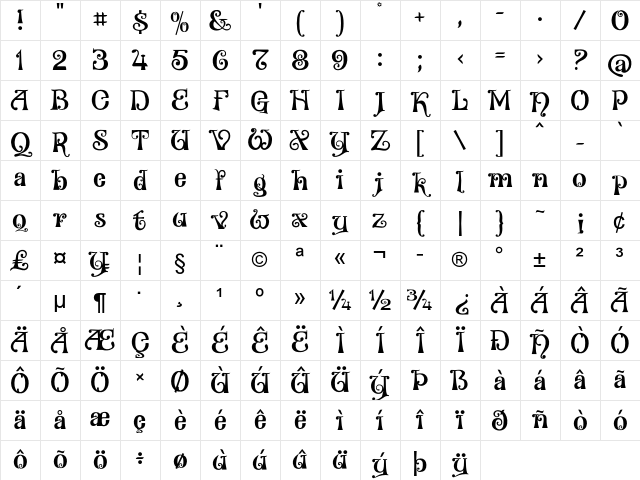
Alistair Regular
Design Context for Alistair
Alistair is a composed and adaptable typeface that performs quietly and consistently across a wide range of design contexts.
Pro Tip: Use Alistair in both headline and body roles to test its range before committing to a single application.